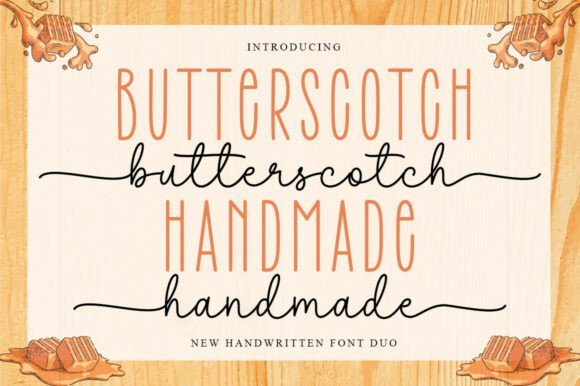
Unlock the Charm of Handwritten Expressions
Remember that moment when you first saw a beautifully handwritten love letter or a heartfelt birthday card? The emotions it evoked, the connection it made, and the timelessness it felt – all of these are the essence of what we strive for in our creative endeavors. For designers, finding the perfect font to convey emotions and evoke feelings is a continuous quest. This is where the Butterscotch Handmade Duo Font comes into play – a harmonious blend of sans serif and script that adds a touch of sophistication and charm to any design.
As a versatile and captivating typeface, the Butterscotch Handmade Duo Font is ideal for a variety of applications, from greeting cards to headlines. Its elegant design and PUA encoding make it a valuable asset for designers, allowing them to create emotionally touching pieces with ease. By incorporating this font into your design art board, you can instantly boost the allure of your work and connect with your audience on a deeper level.
Butterscotch Handmade Duo Font Key Features
- Font Family: Butterscotch Handmade Duo – a unique, hand-drawn font duo consisting of two weights, Regular and Script.
- Unique Characteristics: This font duo features intricate, hand-drawn designs with unique flourishes, making it perfect for adding a touch of elegance and sophistication to various designs, such as invitations, branding materials, and digital graphics.
- Support: Multilingual support, including Latin, Cyrillic, and Greek alphabets – making it versatile for a wide range of design applications.
Butterscotch Handmade Duo Font Review
I recently had the chance to work with the Butterscotch Handmade Duo Font, and I must say it’s a lovely addition to any design project. ✨ The hand-drawn feel and the subtle imperfections give it a unique, organic look that’s hard to find in digital fonts.
- The font is highly customizable, allowing for easy adjustments to spacing, size, and color.
- The duo version includes both the regular and bold weights, making it perfect for creating visually appealing contrast in your designs.
- The font is also highly legible, even at small sizes, making it suitable for a wide range of applications, from print to digital media.
However, I did encounter some limitations while working with the font. ⚠️ The font’s hand-drawn nature can sometimes make it difficult to read, especially in small sizes or when used for long blocks of text. Additionally, the font’s unique style may not be suitable for all design projects, particularly those requiring a more formal or professional tone.
Overall, I’m quite impressed with the Butterscotch Handmade Duo Font. While it may have some limitations, its unique character and high customizability make it a valuable addition to any designer’s toolkit.
For a more authentic look, use the font in combination with distressed textures and watercolor effects.
For a more intricate design, use the font in combination with hand-drawn elements and custom illustrations.
For a more rustic look, use the font in combination with vintage graphics and distressed textures.
Butterscotch Handmade Duo Font is ideal for:
- Custom signs and labels
- Home decor and packaging design
Remember to use the font in a way that complements the overall aesthetic of your design.